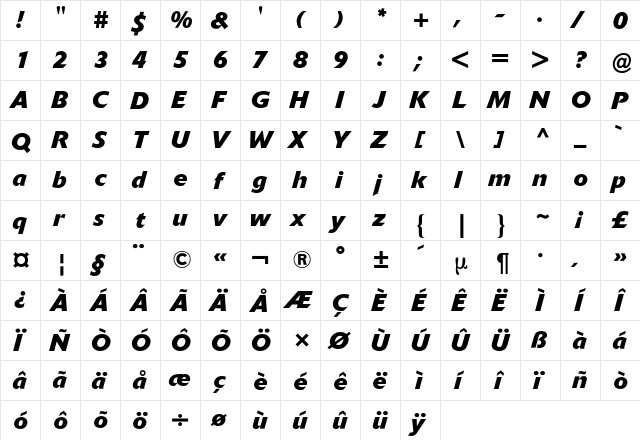
Delta BQ Regular
Design Context for Delta BQ Typeface
Delta BQ takes a measured approach to typography — its balanced proportions and neutral character make it a reliable workhorse for both digital and print work.